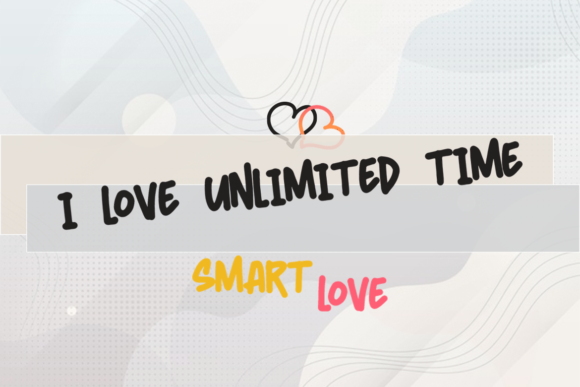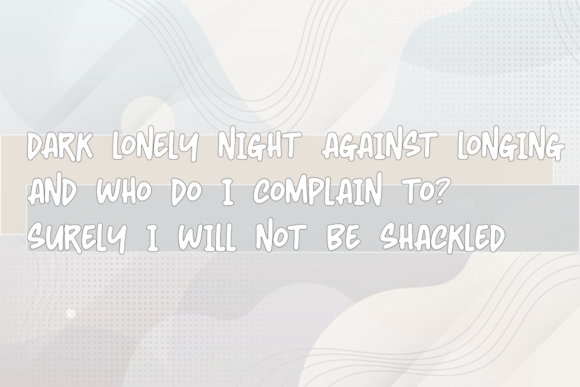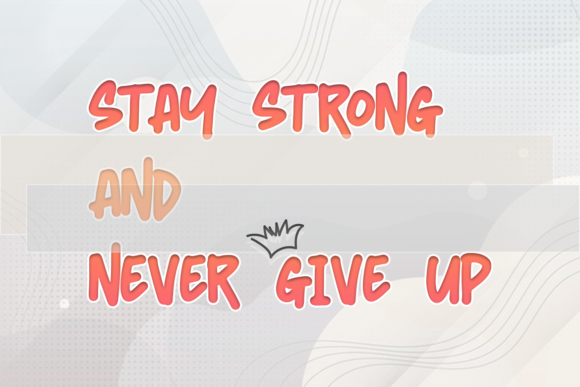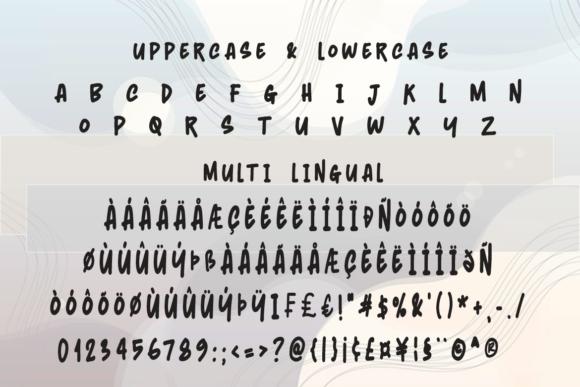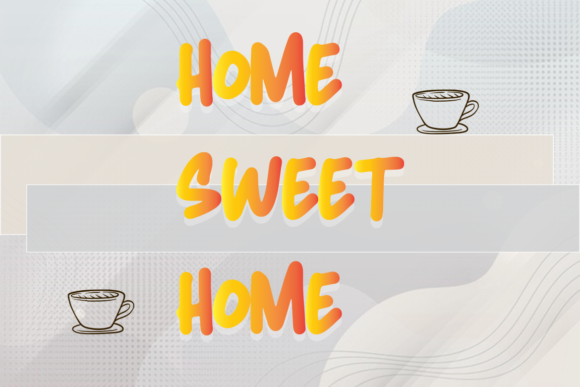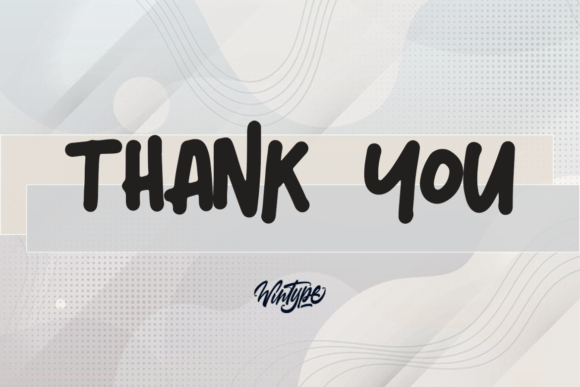
Smart Line Font
About Smart Line Font
Smart Line is a cute, playful and paint brushed handwritten font. Its sweet and full of life style makes this font a wonderful choice for brightening up your designs.